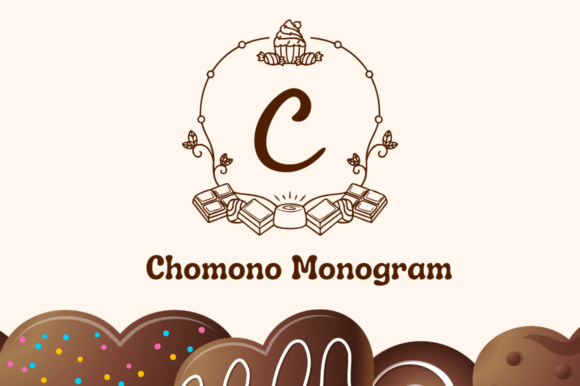
Chomono Monogram Font
**Unleash Your Creativity with Chomono Monogram – The Sweetest Font for Letter C**
Prepare to be captivated by Chomono Monogram, the delectable font that will tantalize your senses and ignite your imagination. This enchanting decorative font is crafted with the utmost care and precision, specifically designed to elevate the letter C to new heights of sophistication.
**Indulge in a World of Chocolatey Delights**
As you immerse yourself in the world of Chomono Monogram, you'll be greeted by an irresistible symphony of chocolate and candy-themed characters. Each letter is lovingly adorned with intricate swirls, flourishes, and embellishments that evoke the irresistible allure of sweet treats.
**The Perfect Match for Your Sweetest Creations**
Whether you're a seasoned designer or simply seeking to add a touch of whimsy to your projects, Chomono Monogram is your go-to font. Its versatility knows no bounds, making it the ideal choice for a wide range of applications:
* Business designs that exude a touch of sweet sophistication
* Logos that leave a lasting impression, infused with a hint of playful charm
* Branding that captures the essence of joy and indulgence
* Social media posts that tantalize your followers with a taste of something special
* Wedding cards that celebrate the sweetest day of your life, adorned with a touch of delectable elegance
**Fall Head Over Heels for Its Irresistible Charm**
With Chomono Monogram, you'll embark on a captivating journey where your creativity flourishes. Its enchanting designs will ignite your imagination, inspiring you to create masterpieces that will leave an unforgettable mark on your audience.